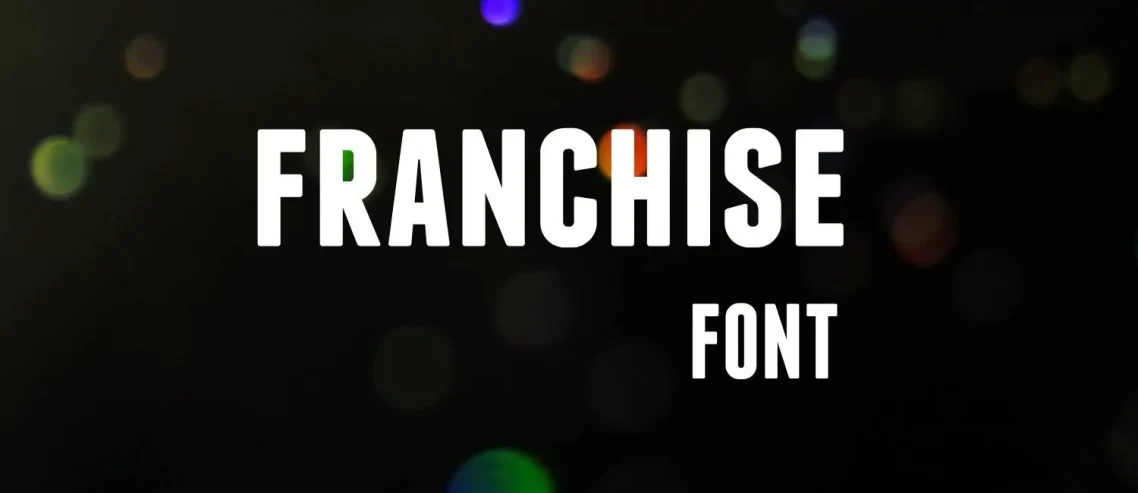
Franchise Font is a Display typeface created by American type designer Paul Renner. This font family includes five weights: Regular, Medium, Bold, Heavy, and Black.
This Font was created in the early 1950s as a response to the need for an easily readable sans-serif typeface that would work well on both digital and print media.
This Font was designed with readability in mind. The letterforms are open and have a large x-height, making them easy to read at small sizes. The typeface also includes a large number of alternate characters, allowing for more variety in your text.
Name | Franchise Font |
Designer | Paul Renner |
Style | Display |